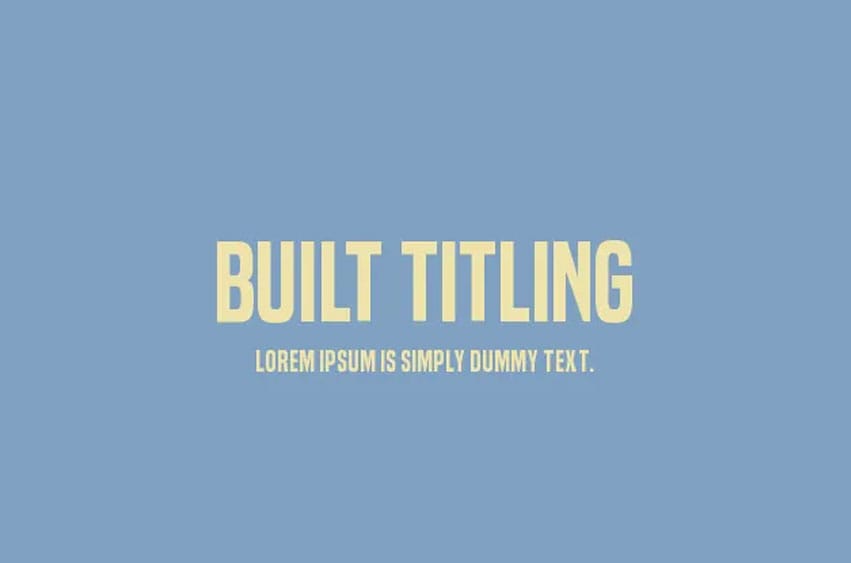
Built Titling Font Built has one job, making solid compact headlines onscreen. Designed with trust and neutrality in mind, Built’s wraparound forms speak newsy headlines in your voice. Subtle curls contrive a feeling of some different news era, without coming off particularly antiquated.
Built varies in five weights from extra-light to bold. But not like your usual thin to fat continuum. Type fonts are already restricted in how lightly they can be made. In this day and age, with all sorts of different resolutions and screens, going lighter just makes everything get bigger–a whole lot bigger. You’ll really look funny if you wind up getting splits in the ends.
Built boasts fractions, primes, numeric ordinals, compact accents, Indian rupees and the Turkish lira. As it loses weight, Built’s asterisk sprouts more legs, keeping it’s presence even in Extra-Light. The punctuation is squeezed thin and has some nice loose effects on the edges, giving it cool emphasis that is more than a slant.